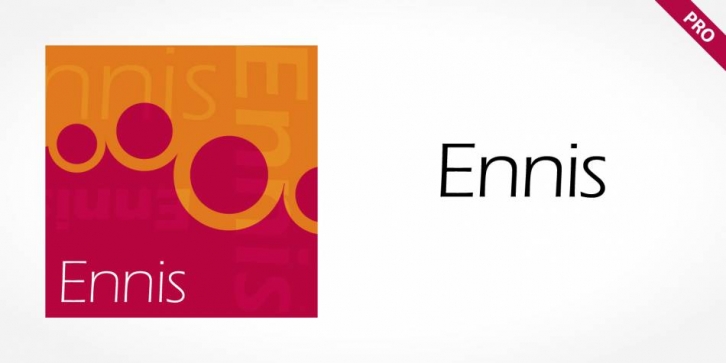
Ennis Pro is a sans serif font family. This typeface has six styles and was published by SoftMaker.
It is a typical sans serif typeface distinguished by its unusual slight forward slant and subtle variations in stroke weight. Ennis Pro is an open and airy typeface inspired by both Greek stone-cut lapidary letters as well as Roman capitals.